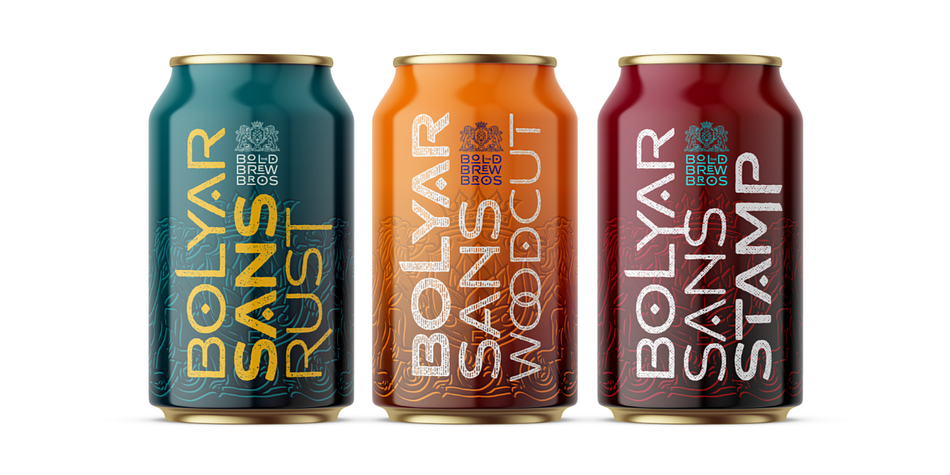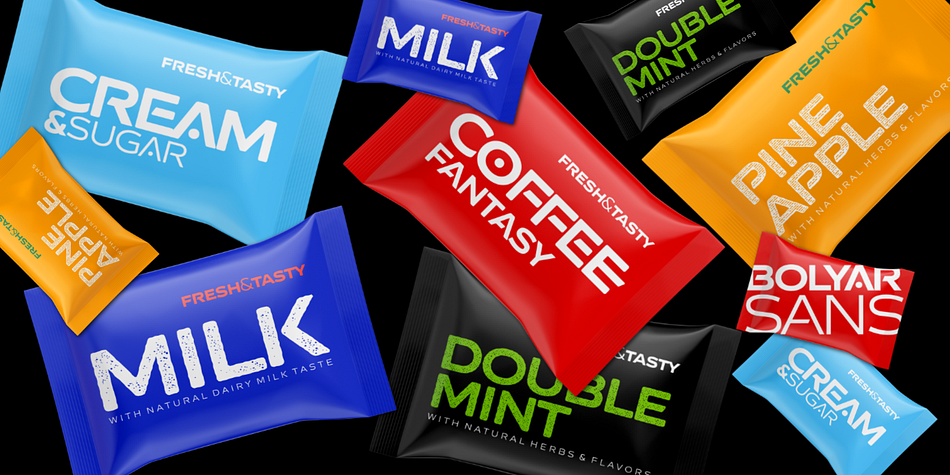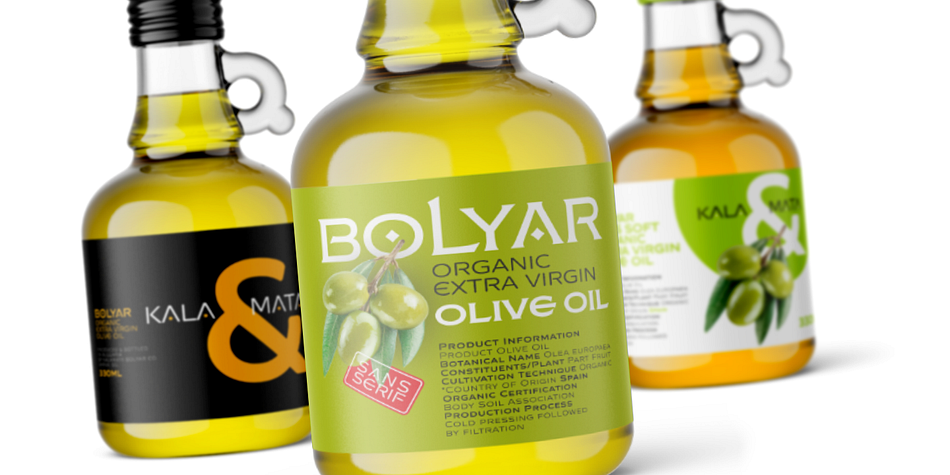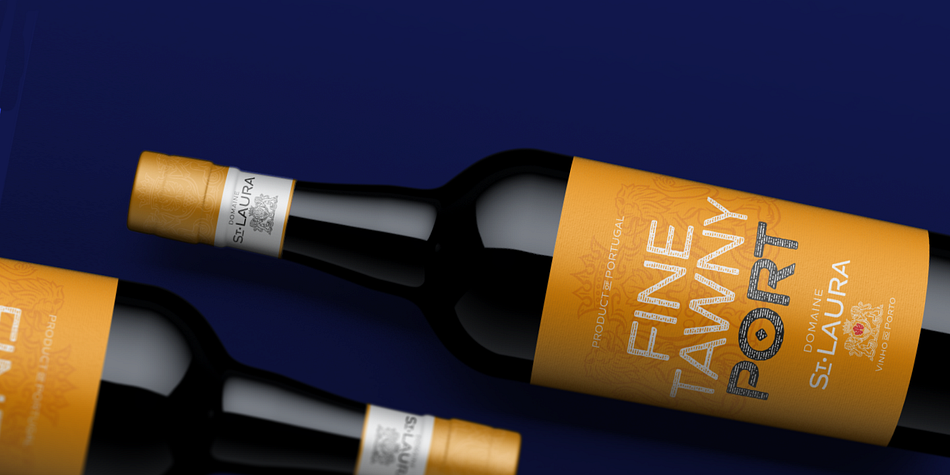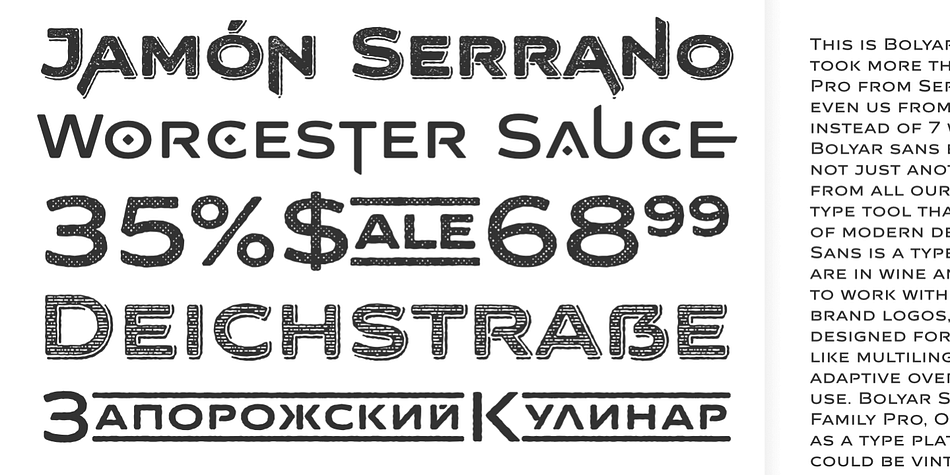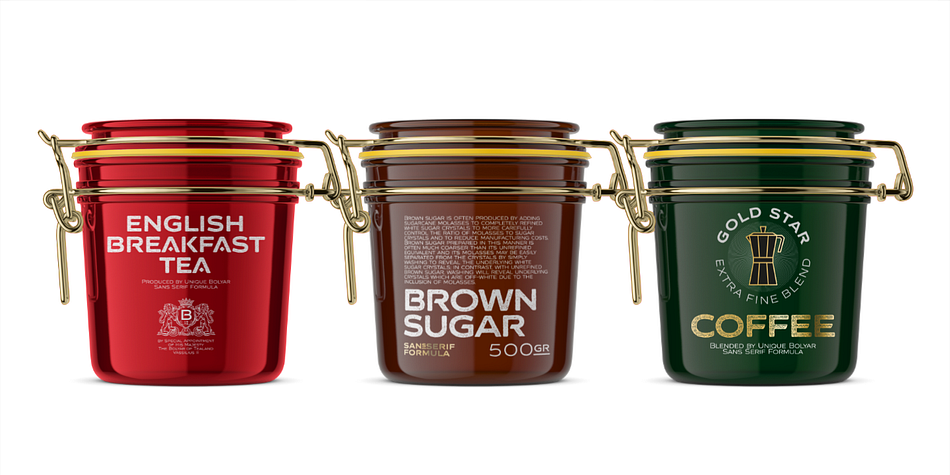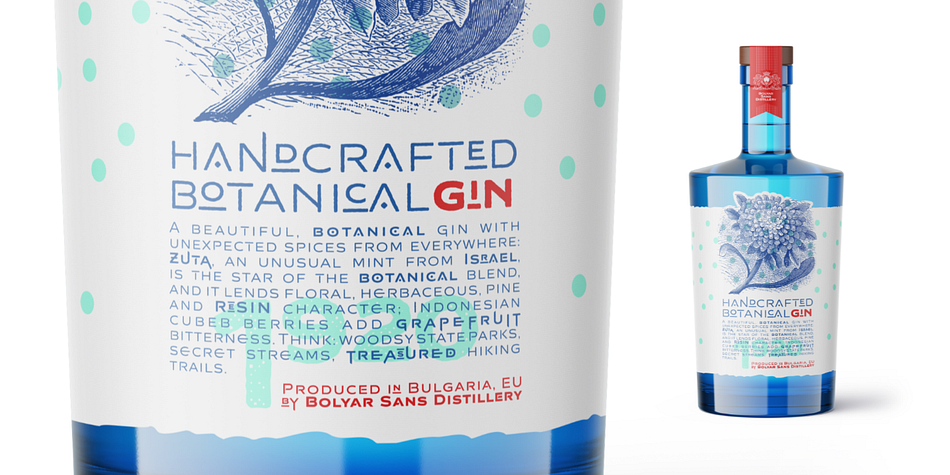
Designed by Jordan Jelev and Vassil Kateliev, FM Bolyar Sans Pro is a display sans font family. This typeface has sixty-three styles and was published by The Fontmaker.
This is Bolyar Sans font family. For us it is a dream-come-true. It took more than 1 year hard work to transform the existing Bolyar Pro from Serif to Sans Serif version. The result really surprised even us from The Fontmaker and we decided to develop it in 9 instead of 7 weights. So at the end we created 7 different styles of Bolyar sans each consisting from 9 precise weights.
Bolyar Sans is not just another font family in our portfolio - it is the essence from all our efforts thru the past 5 years to create a powerful type tool that could easily meet very diverse and complex demands of modern design. Furthermore, like all its predecessors, Bolyar Sans is a type concept created by Designers for Designers. If you are in wine and spirits industry, packaging design, or you just love to work with strong headlines that effortlessly could turn into brand logos, than you should definitely try our Bolyar Sans. It is designed for this.
Of course there are plenty of different features like multilingual support, ligatures, alternates, we even added adaptive over- and underlining to make it even more complex in its use.
Bolyar Sans pairs perfectly with other members of Bolyar Family - Pro, Ornate and Typecraft. So as you see Bolyar is developed as a type platform with own character and style. By using it you could be vintage, classic, modern, soft, even bold, rough and ornate. It is a visual bridge between different typographic periods united under Bolyar name. With our Sans version we aim to be contemporary and to provide powerful type tool to those designers who often love to swim between past and modernity.